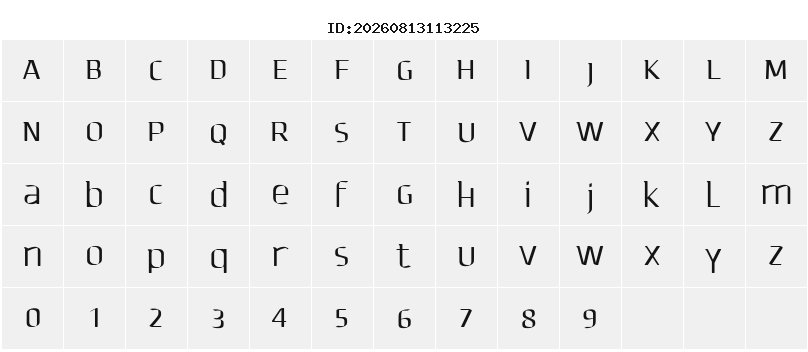
• Font Name: Redhead
• Full Font Name: Redhead
• Manufacturer: Murat Yegul
About Redhead.ttf
Redhead.ttf is a modern, elegant sans-serif font designed for ultimate readability and visual harmony. Perfect for branding, headlines, web design, and print materials.